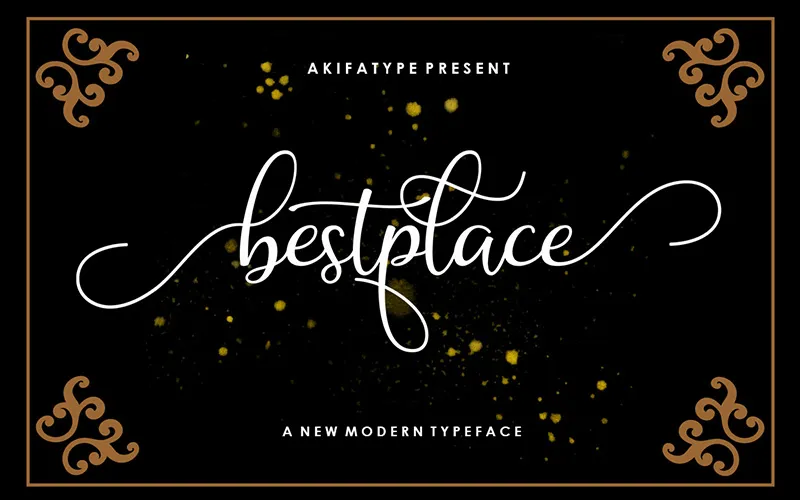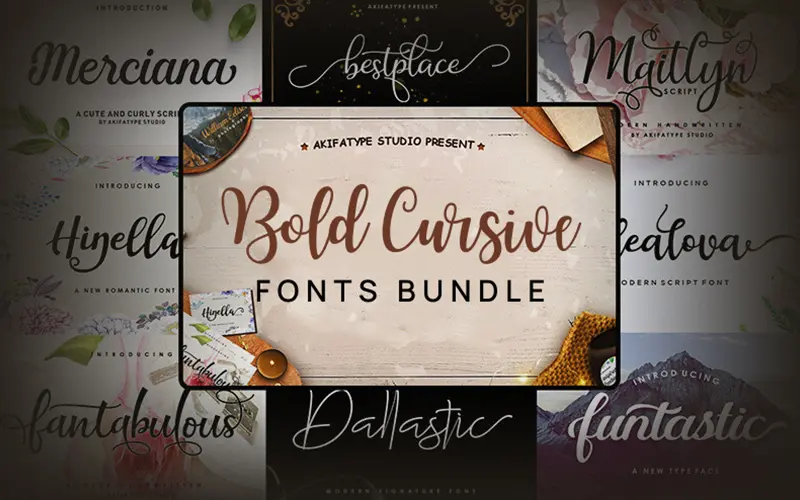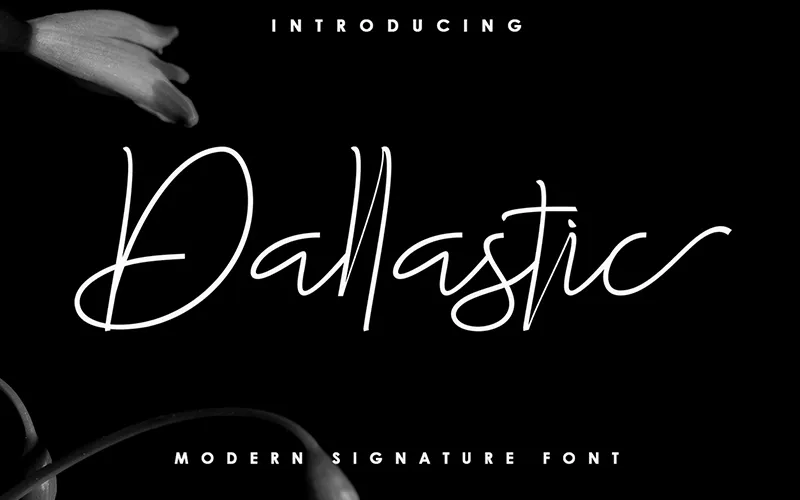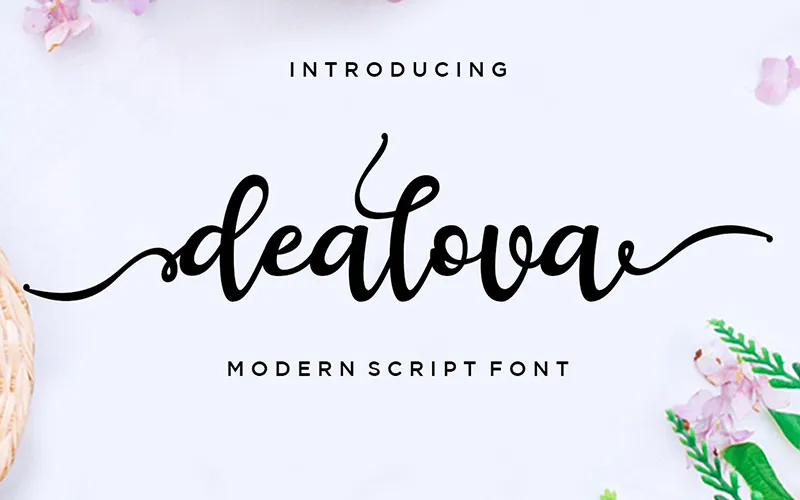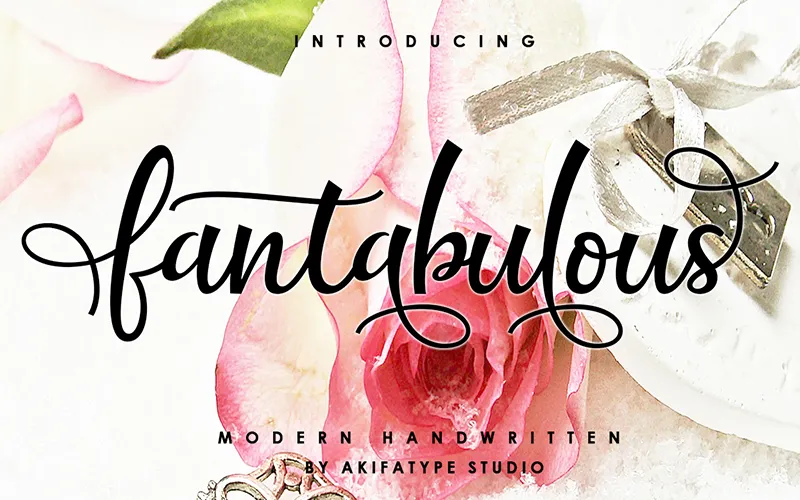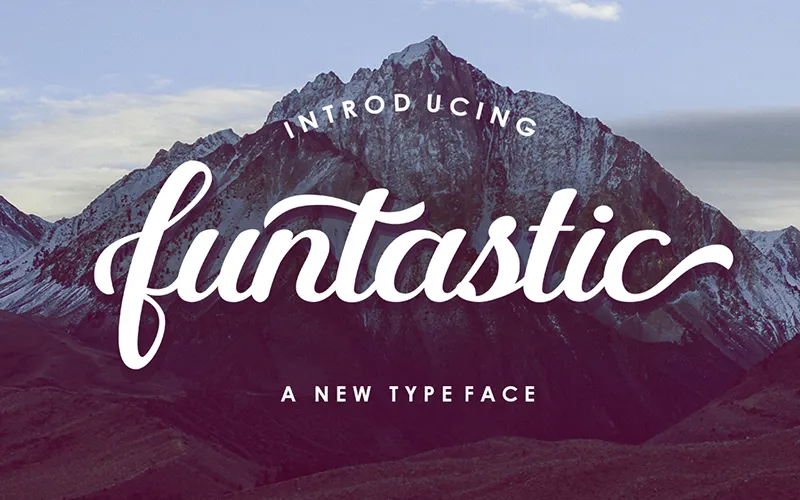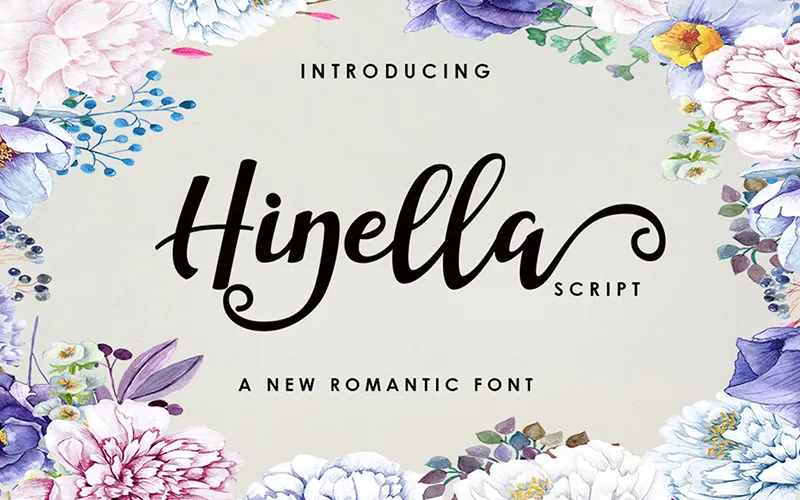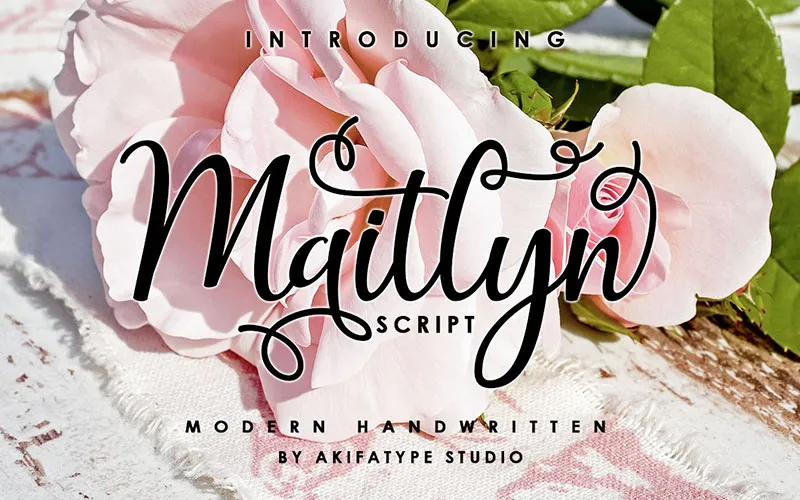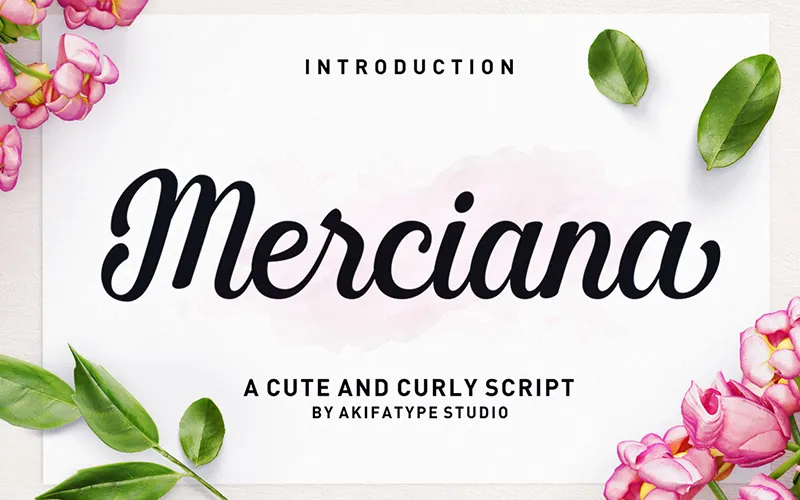
Your designs need a unique mix of font strength and style, which is why DealFuel brings to you this-
Bold Cursive Fonts Bundle
These fonts effortlessly combine the timeless beauty of cursive typography with modern designs.
This Bold Cursive Fonts Bundle Includes:
1. Bestplace Font
2. Dallastic Font
3. Dallastic Slant Font
4. Dealova Font
5. Fantabulous Font
6. Hinella Script Font
7. Maitlyn Font
8. Merciana Script Font
A Preview Of The Bold Cursive Fonts:
A preview of Dealova - a bold cursive font included in the bundle
A preview of Fantabulous- a modern font included in the bundle
A preview of Funtastic- a new cursive font included in the bundle
A preview of Hinella - a bold romantic font included in the bundle
A preview of Maitlyn - a bold cursive font included in the bundle
A preview of Merciana - a cute cursive font included in the bundle
A preview of Bestplace - a modern cursive typeface included in the bundle
A preview of Dallastic - a modern signature font included in the bundle